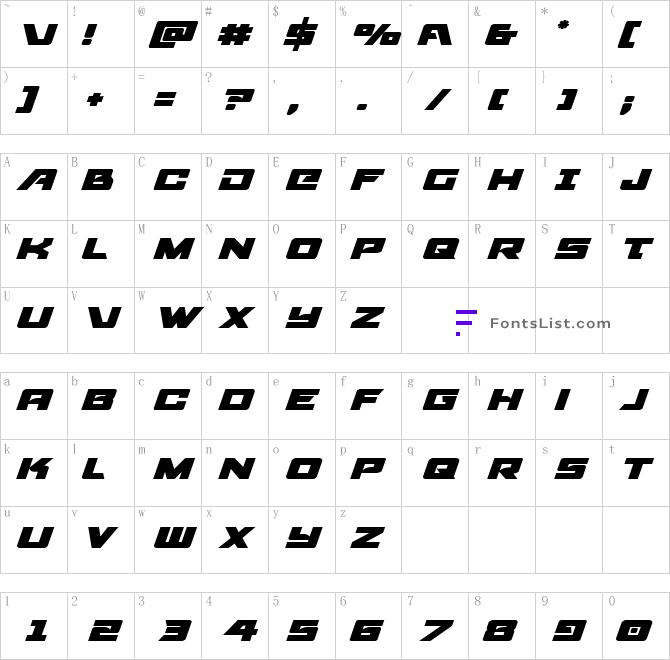
- Font Name:Aircruiser Expanded Italic
- Subfamily:Expanded Italic
- Subfamily:Aircruiser Expanded Italic: 2011
- Full Name:Aircruiser Expanded Italic
- PostScript:AircruiserExpandedItalic
Aircruiser-Expanded-Italic.ttf is a very beautiful artistic font, Aircruiser-Expanded-Italic.ttf is widely used in the design and printing of various books and pictures,Aircruiser-Expanded-Italic.ttf has a strong visual impact,Aircruiser-Expanded-Italic.ttf is a commonly used font in newspapers, magazines and books, and is used in posters, e-commerce Poster design, store design, logo design, font design and other fields.Aircruiser-Expanded-Italic.